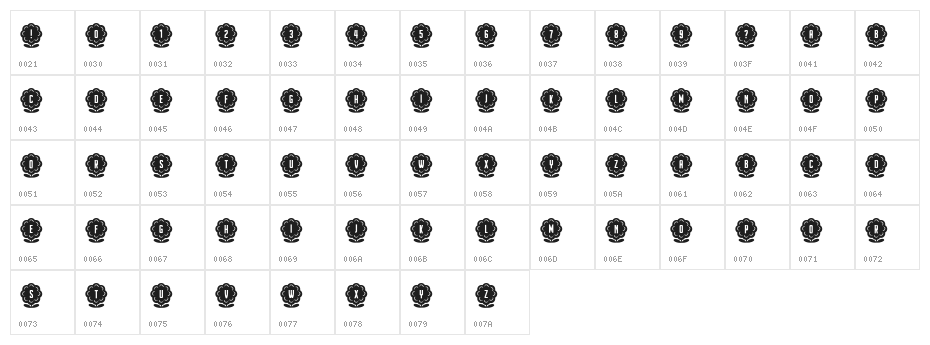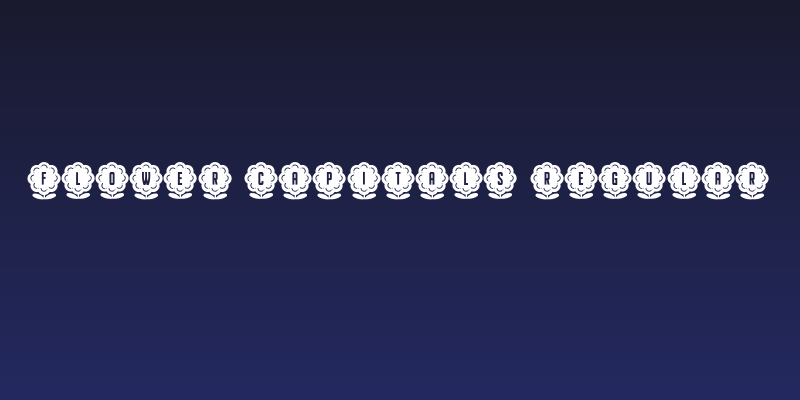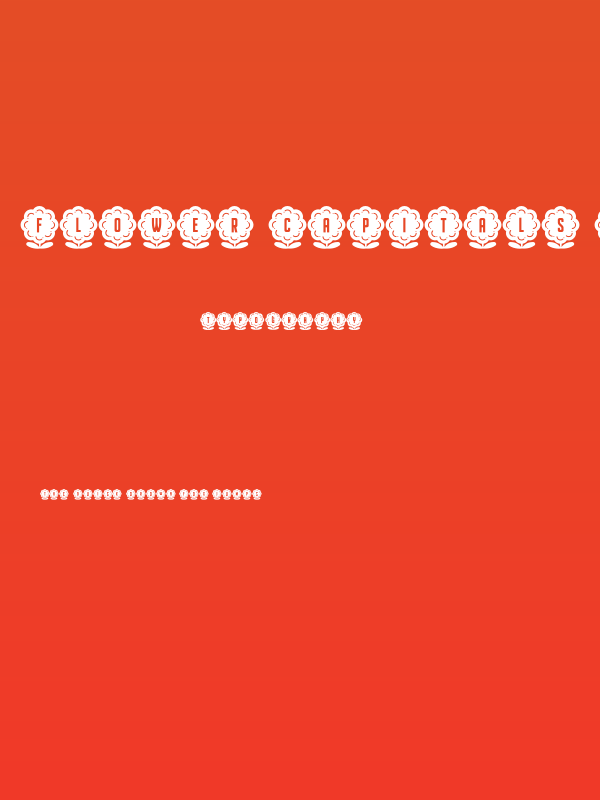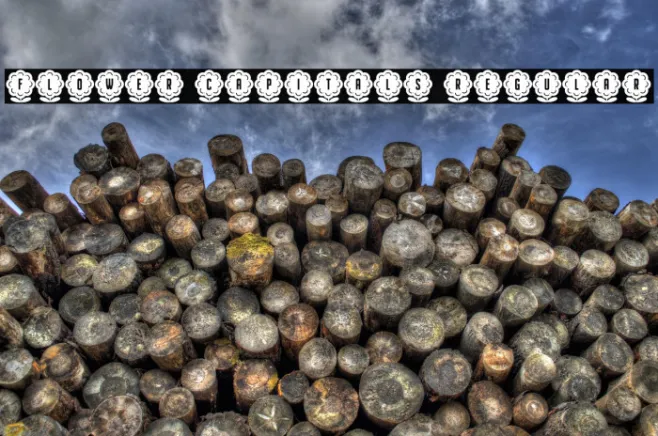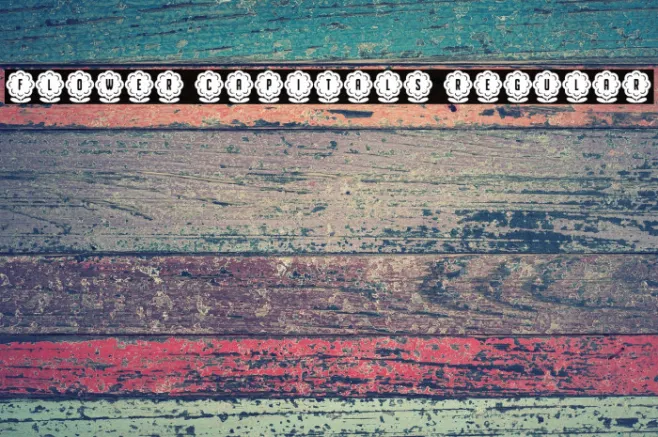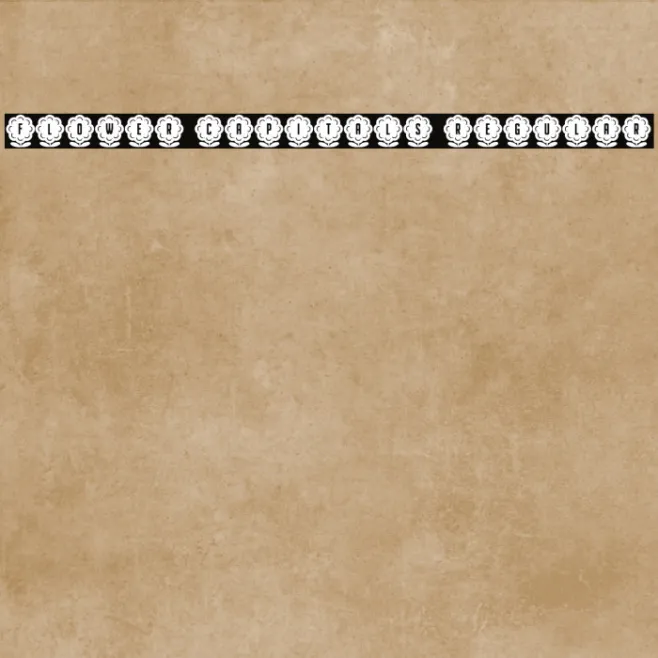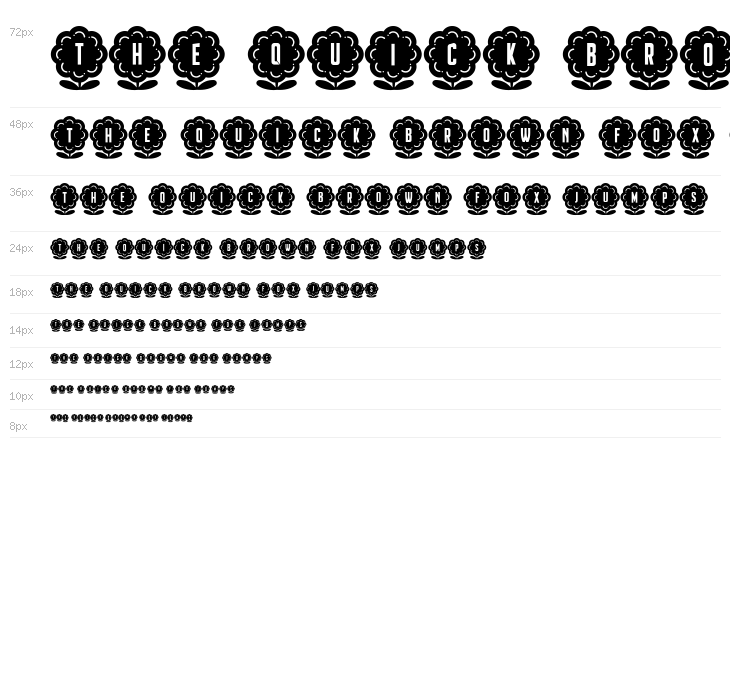
Flower Capitals Regular Font
Flower Capitals Regular Description
This decorative font features characters encased in a floral design, creating a unique and playful appearance. Each letter and number is centered within a stylized flower, making it ideal for projects that require a whimsical or nature-inspired theme. The bold outlines and consistent floral motif provide a cohesive look across all characters. This font is particularly suitable for creative projects where a touch of elegance and fun is desired. The uniformity in design ensures readability while maintaining its decorative appeal.
| Use Case | Logos, Headlines, Decorative Text |
| Proposed Projects | Greeting cards, children's book covers, event invitations, decorative posters, and nature-themed branding. |